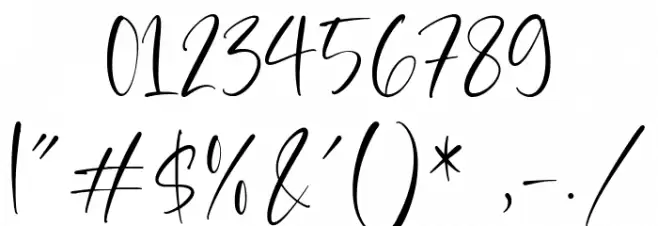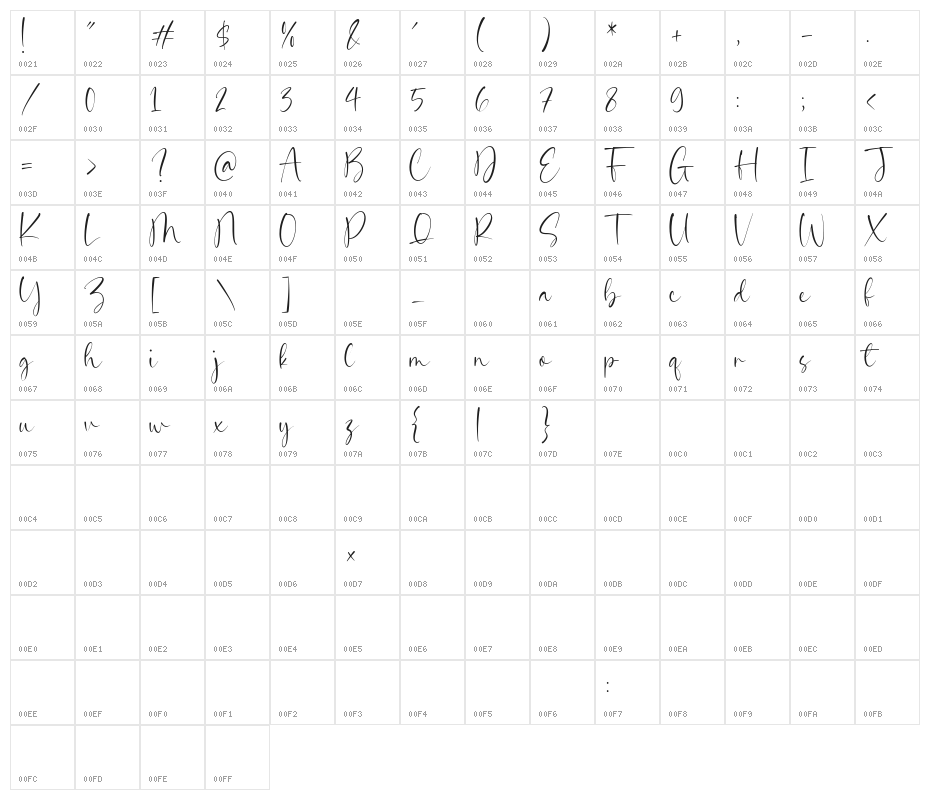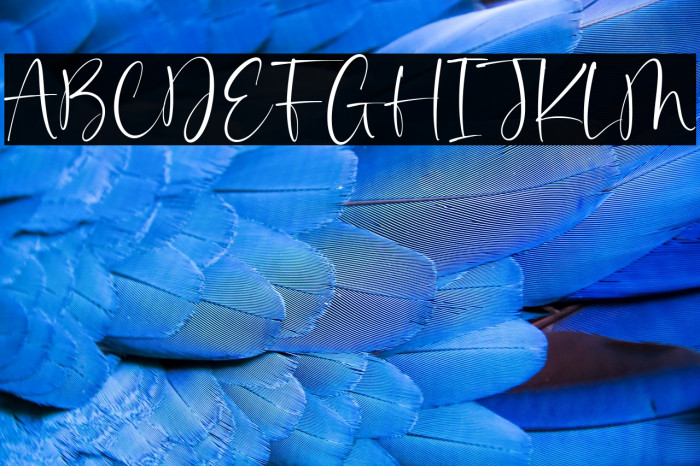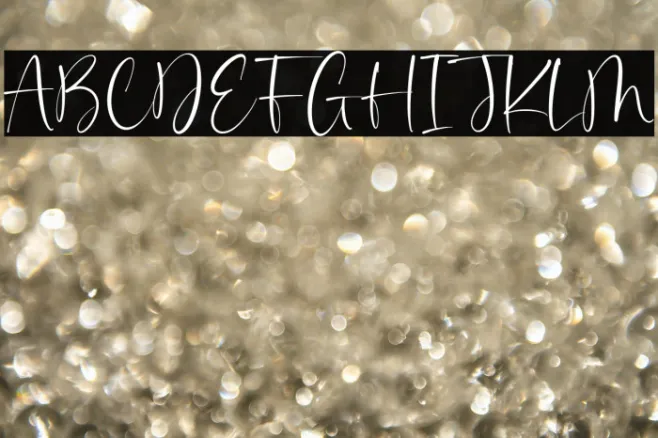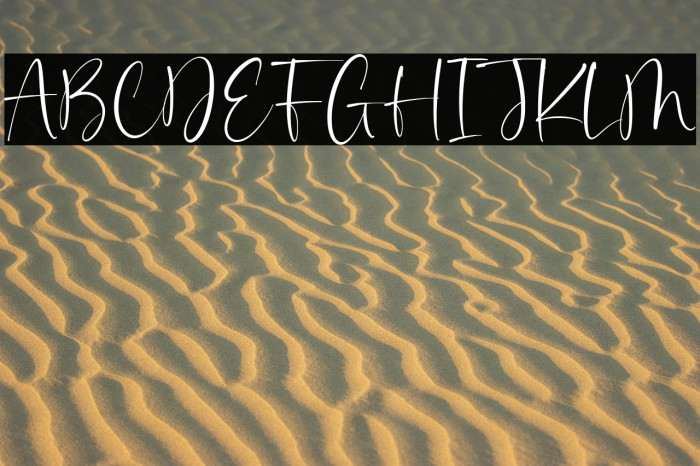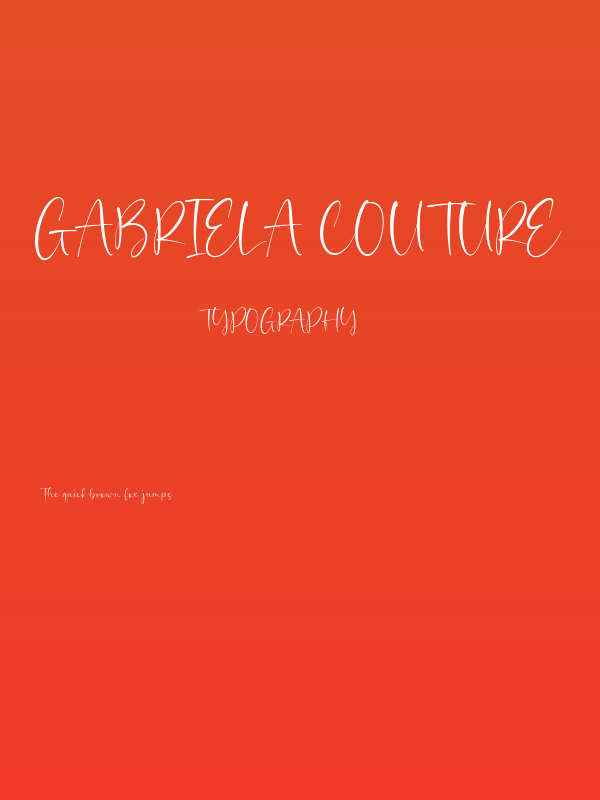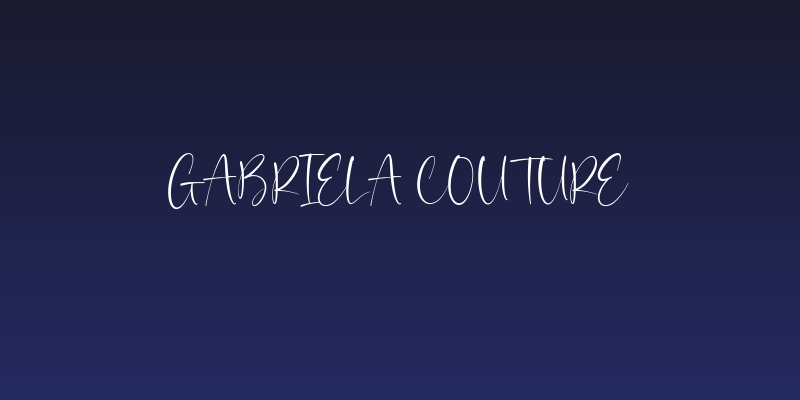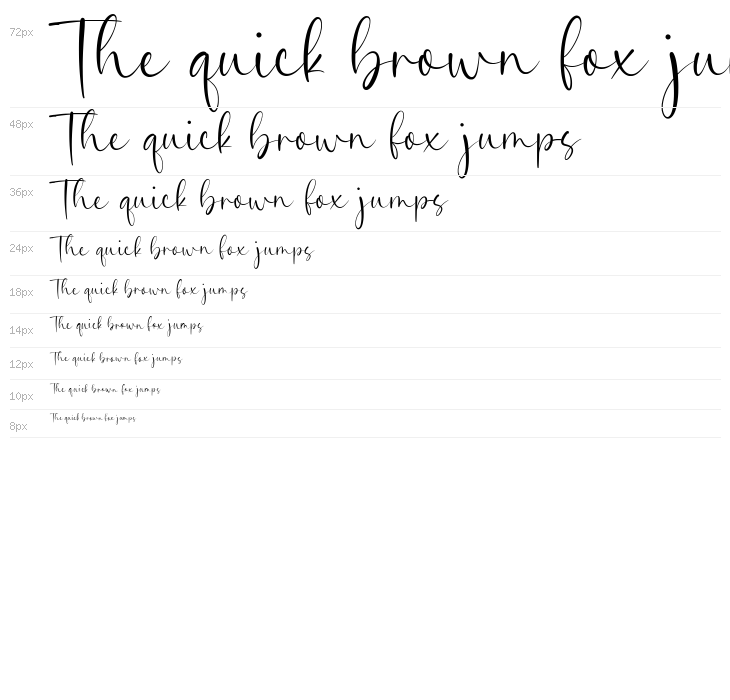
Gabriela Couture Font
Gabriela Couture Description
A flowing, elegant script font with a handwritten style, featuring smooth curves and a natural, personal touch.
| Overall Style | Decorative |
| Use Case | Logos, Invitations, Personal notes |
| Proposed Projects | Wedding invitations, greeting cards, personal branding. |